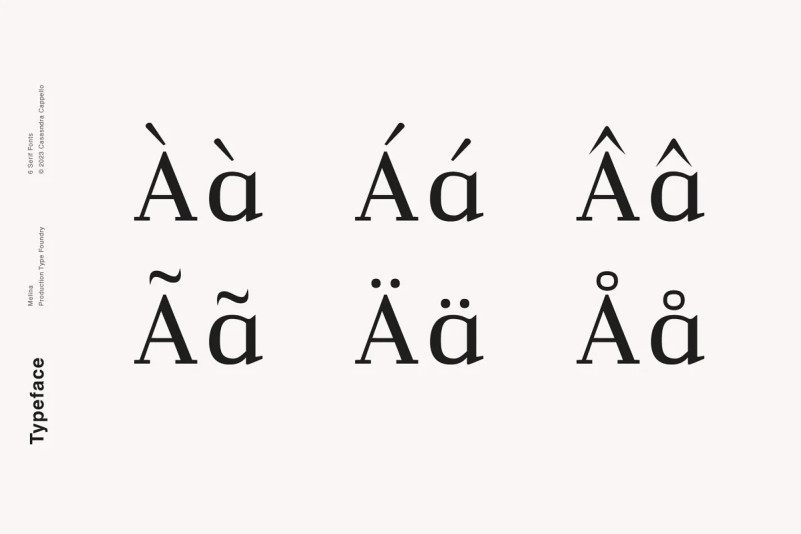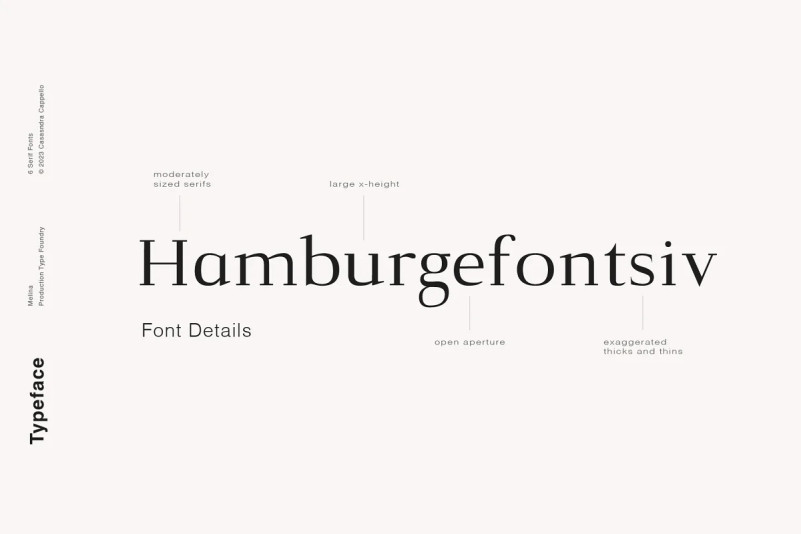
Melina Font
Melina Font is a refined, yet fun serif typeface. Its striking look makes it perfect for headers. This font family includes all Latin characters (including accents), numbers, special characters, and punctuation.